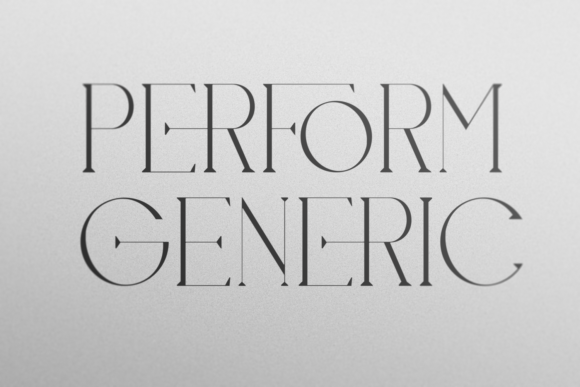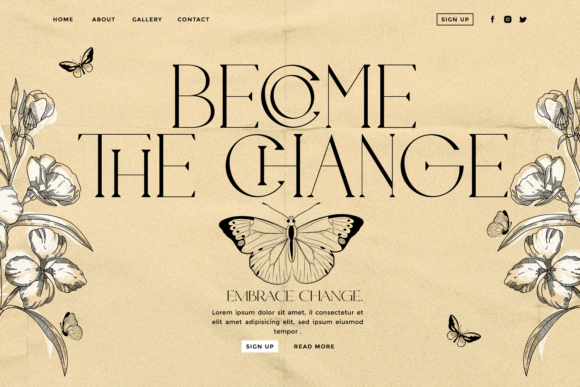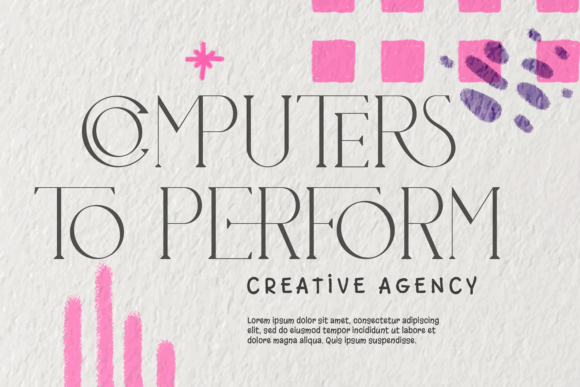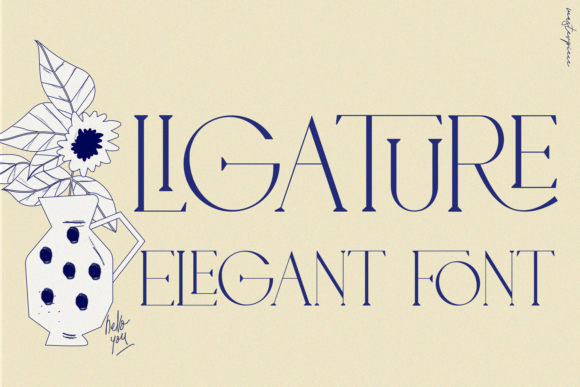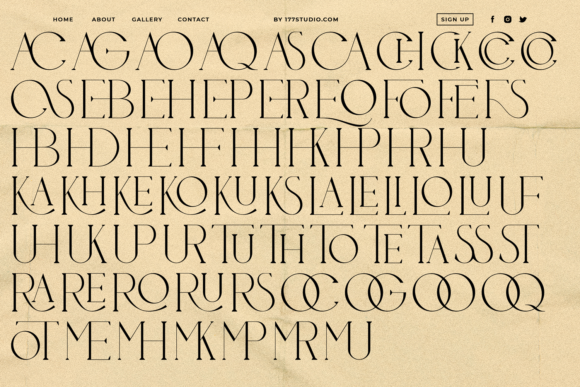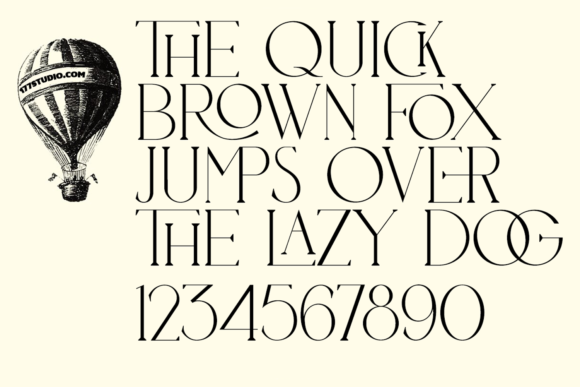
Introduction to Cheops Font
Cheops is an elegant, thin and tall lettered serif font.
It is PUA encoded which means you can access all glyphs and swashes with ease Add it confidently to your favorite creations and let yourself be amazed by the outcome generated.
Key Features of Cheops Font